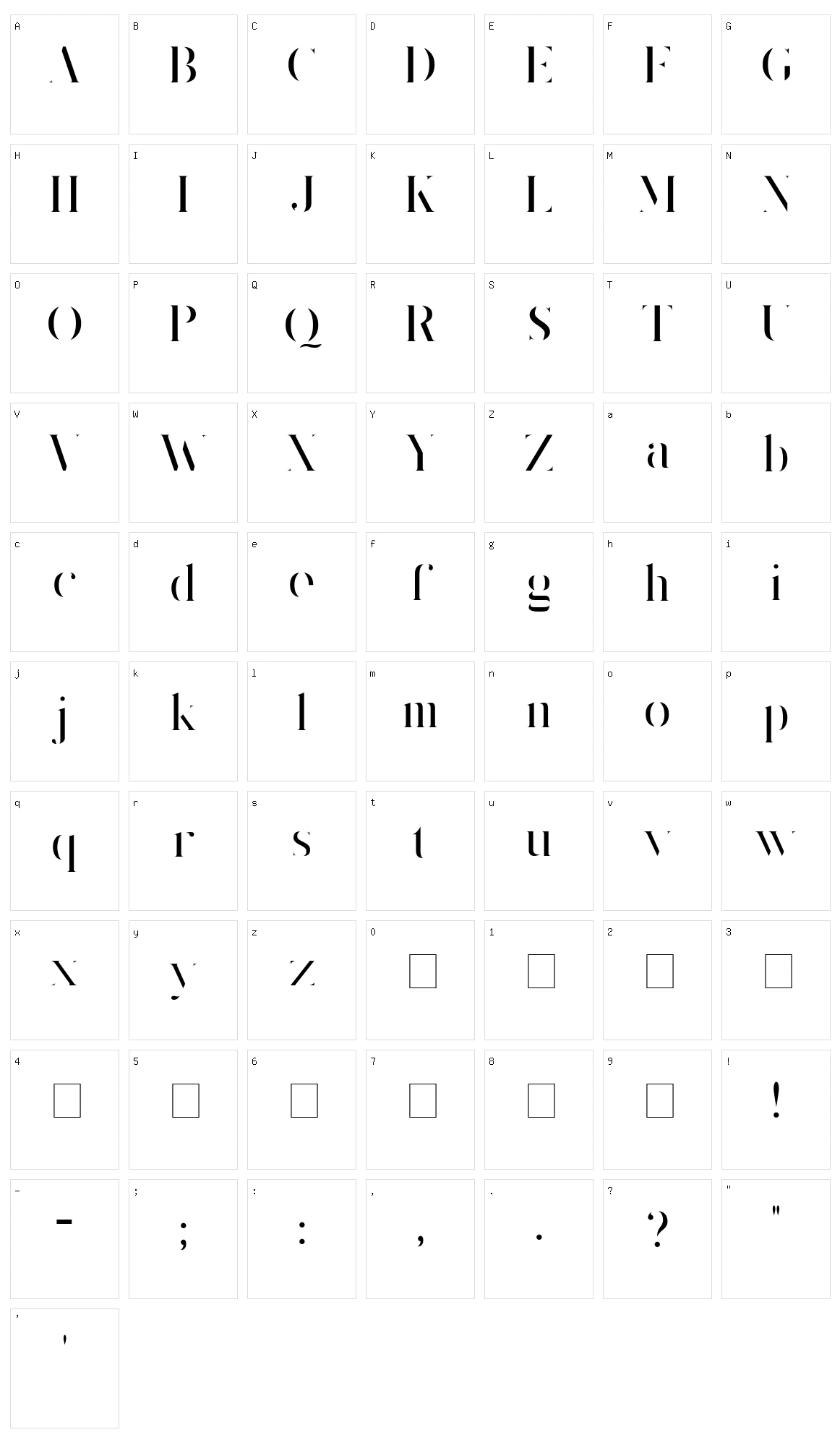
Font: King's Gambit
Created By: Matthew Welch
About the font:
In this font I drew just the thick parts of a serifed font. Since
the thick parts are all your eye actually sees when reading, this
font is pretty readable despite being fairly insubstantial.